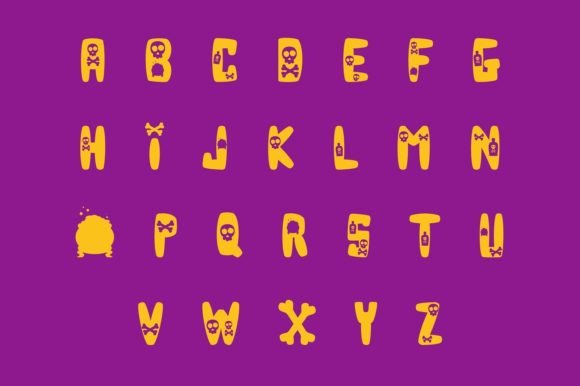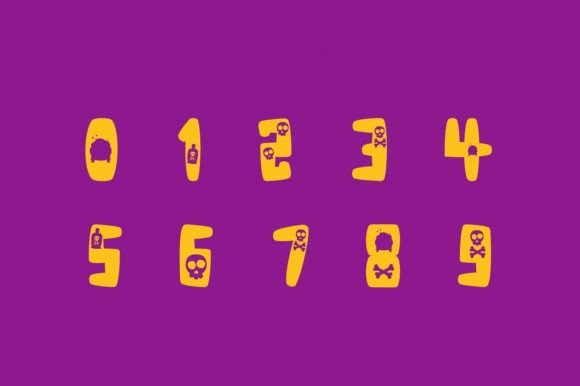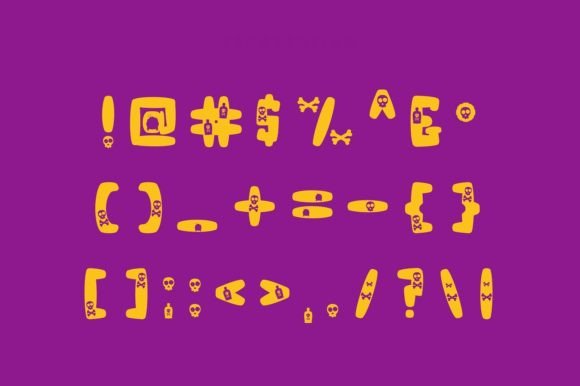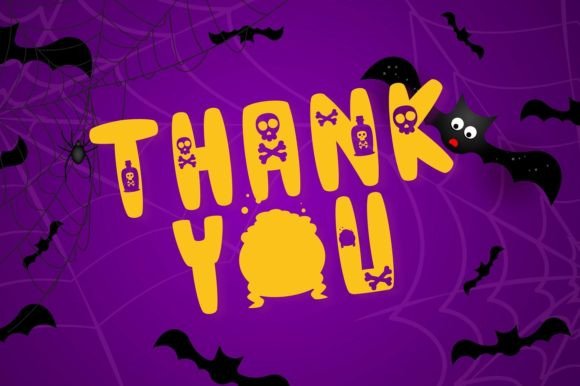
Introduction to Halloween Victory Font
As a designer, you’ve probably had that moment when you’re brainstorming ideas for a project and you stumble upon the perfect font. It’s like a spark of creativity ignites, and you can see the entire design come together in your mind. For me, that moment happened when I discovered the Halloween Victory Font. Its unique blend of spooky and playful elements had me hooked from the start.
This font is a game-changer for any designer looking to add some seasonal flair to their projects. Whether you’re working on a Halloween-themed blog post, a logo for a haunted house attraction, or even just a fun invitation for a costume party, the Halloween Victory Font is the perfect choice. Its high-quality design and transparent background make it easy to incorporate into any design, and its free download makes it accessible to designers of all levels.
With the Halloween Victory Font, you’ll have the creative freedom to unleash your imagination and bring your spooky projects to life. As a valuable resource for designers, it’s a must-have for anyone looking to add some Halloween magic to their designs.
Halloween Victory Font
- Comes in 1 font style with 1 weight, perfect for adding a touch of Halloween spirit to your design
- Designed to be versatile, suitable for use in a variety of creative projects, from print to digital media
Honest Review: Halloween Victory Font
As a designer, I’m always on the lookout for unique and high-quality design resources to elevate my creative projects. The Halloween Victory Font is a great addition to my collection, and I’m excited to share my honest review.
- ✨ The font’s bold and spooky design is perfect for Halloween-themed projects, making it a great choice for designers who want to add some seasonal flair to their work.
- ⚠️ The font may not be suitable for non-Halloween projects, as its design is quite specific to the holiday season.
- ⚠️ Some designers may find the font’s bold design too overwhelming or distracting, depending on the context of their project.
Overall, I’m impressed with the Halloween Victory Font’s design quality and versatility. While it may have some limitations, it’s a great resource for designers who want to add a spooky touch to their creative projects.
Halloween Victory Font
The Halloween Victory Font is a unique and spooky design resource that adds a touch of horror to any creative project. This high-quality font features a transparent background, making it perfect for adding a haunting effect to your designs.
To get the most out of the Halloween Victory Font, try combining it with other spooky design elements, such as ghostly textures or creepy graphics. You can also experiment with different font sizes and colors to create a dramatic effect.
The Halloween Victory Font is perfect for creating spooky invitations, horror-themed posters, or haunted house decorations. You can also use it to add a touch of horror to your social media graphics or website design.